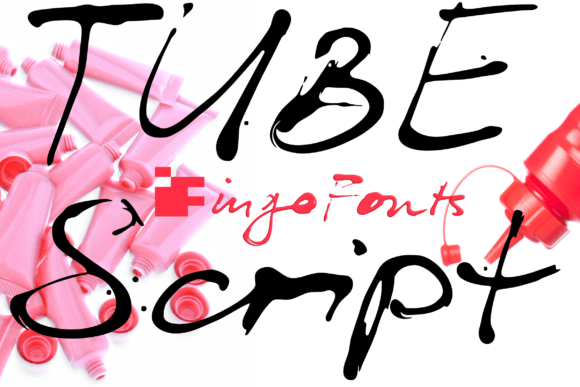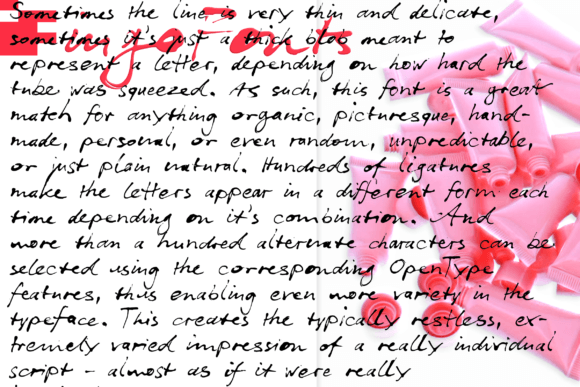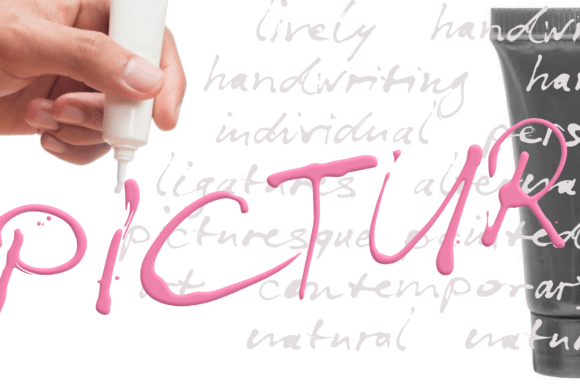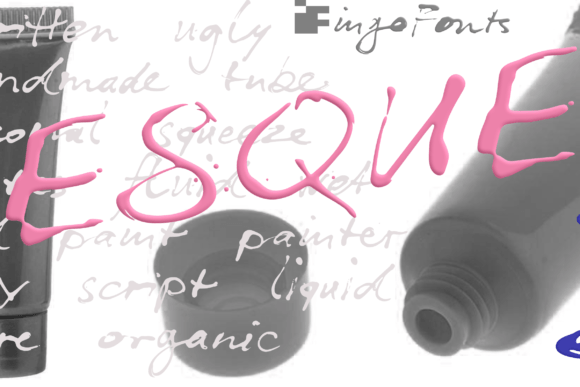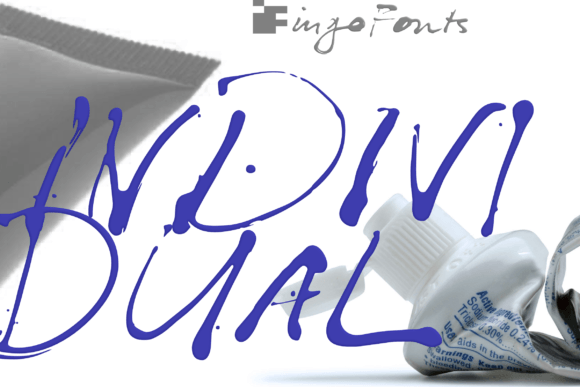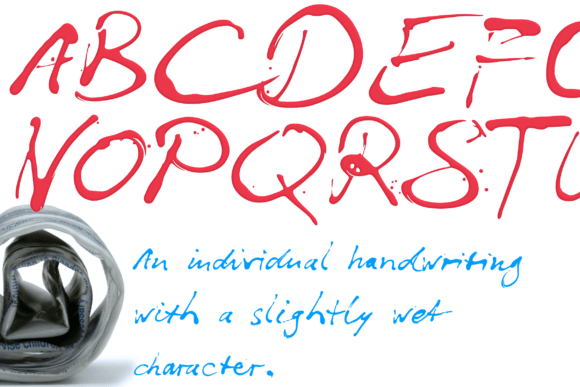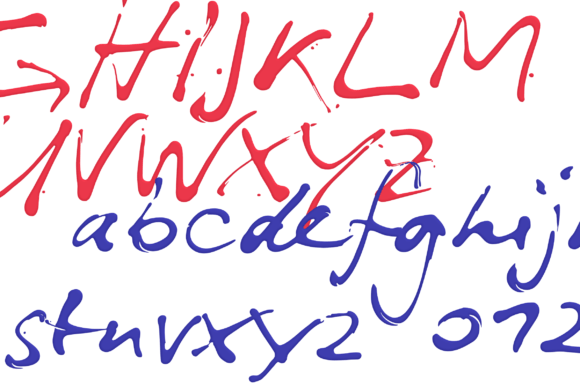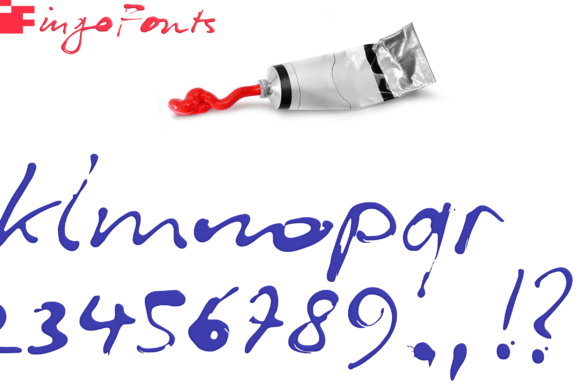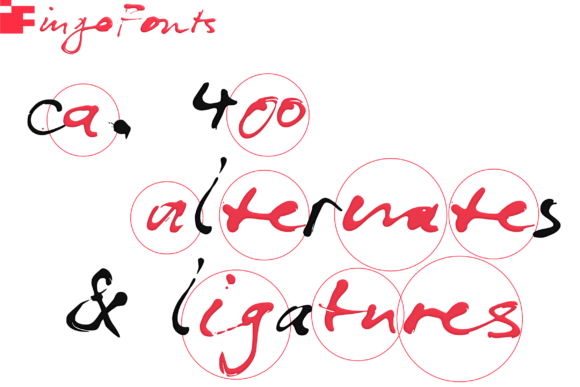
Tube Script Font
What Is Tube Script Font?
Tube Script Font is a unique handwritten typeface that captures the unpredictability and raw character of real ink applied with a color-filled tube. Each stroke looks as if it were pressed directly onto the page with varying pressure, creating thin delicate lines, thick blots, smears, and organic textures. The result is a font that feels handmade, authentic, and bursting with personality.
It’s perfect for projects that need an artistic, natural, or genuinely personal touch.
Tube Script shines in applications where you want to create an individual and expressive look. For example, it’s ideal for art prints, posters, and album covers. The random line thickness and painterly details make headlines look truly one-of-a-kind.
Branding projects for creative businesses, artisan products, or sustainable goods also benefit from Tube Script’s raw, organic style. It helps communicate authenticity and craftsmanship.
Social media graphics and digital campaigns stand out with Tube Script’s distinctive forms. Your posts will feel fresh and handcrafted.
Wedding invitations, event stationery, and personal projects gain a heartfelt, unpredictable quality when you use this font.
Even packaging, labels, and handmade product tags feel more memorable and real with Tube Script’s textured letters.
Why Should You Choose Tube Script Font?
Tube Script’s standout feature is its incredible variety and realism. Because the font was designed to mimic real-life pressure and flow, no two letters look exactly the same. Some strokes are clean and fine, while others are messy and bold.
Ligatures and OpenType alternates make Tube Script even more dynamic. The font automatically swaps characters depending on the combination, so your text looks convincingly like spontaneous handwriting rather than repeating shapes.
Designers love that Tube Script creates authentic, organic results straight out of the box without extra illustration work.
Tube Script Font adds an emotional, handcrafted feel that’s hard to replicate with standard typefaces. It injects a sense of unpredictability, personality, and warmth into every project.
Even minimalist layouts become visually engaging and artistic when you use Tube Script. Whether you’re designing branding, packaging, or digital content, this font instantly makes your work feel alive and unique.
Using a font with real texture and variety shows your dedication to thoughtful, high-quality design. Clients and audiences will notice and appreciate the authenticity.
Tube Script Font isn’t just a typeface—it’s an artistic tool that helps you communicate ideas in a fresh, natural way. From posters and labels to invitations and social graphics, it adapts seamlessly and creates an unforgettable impression.